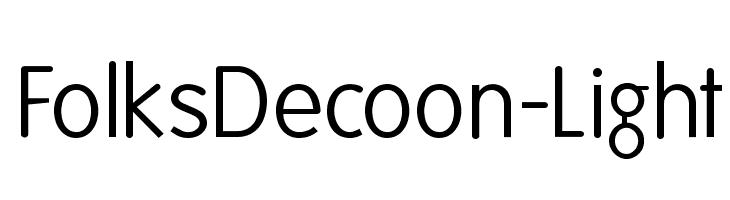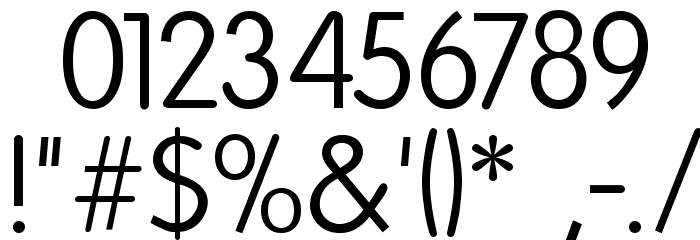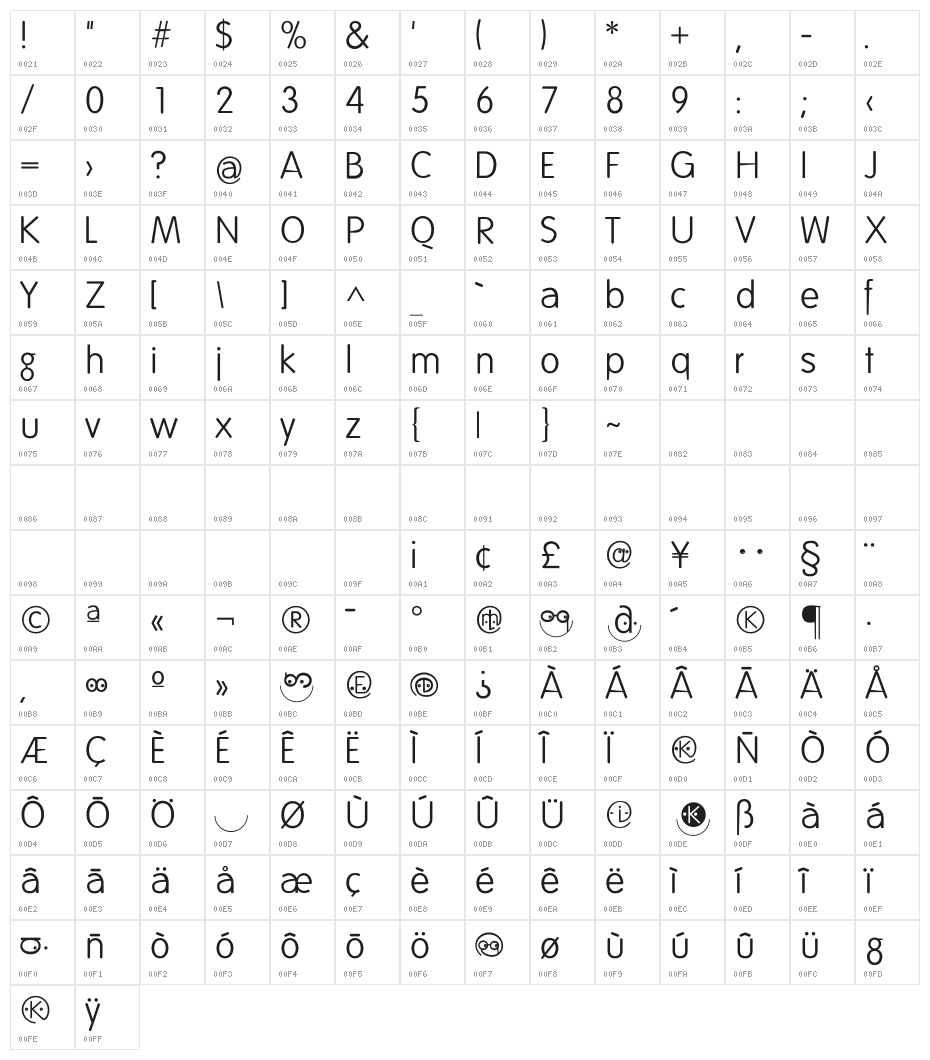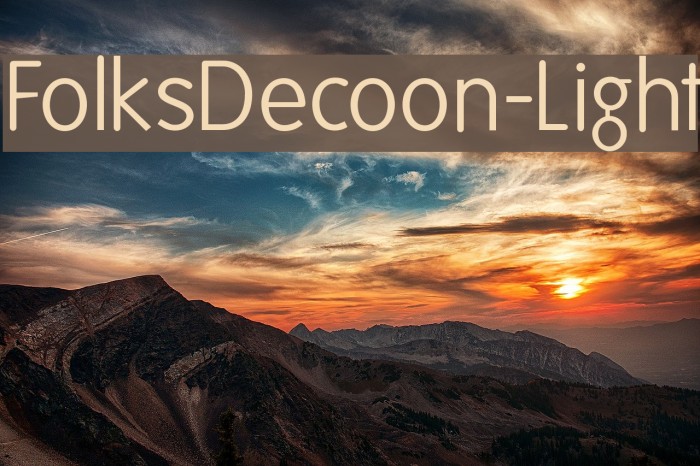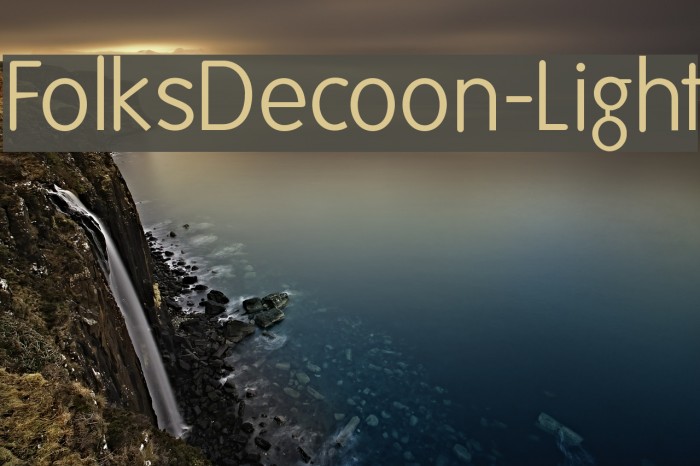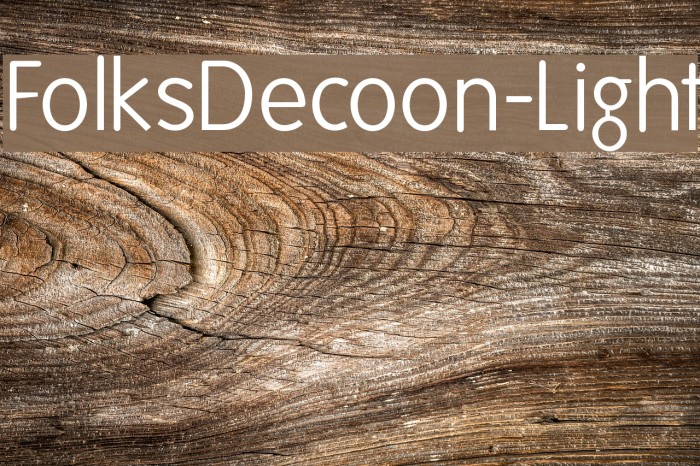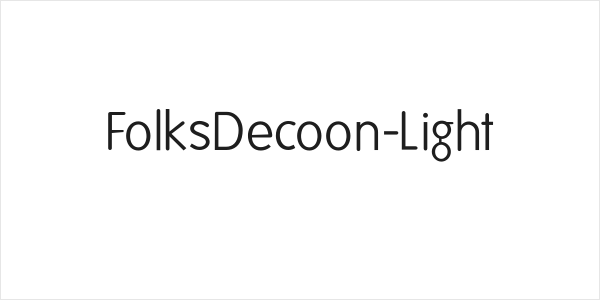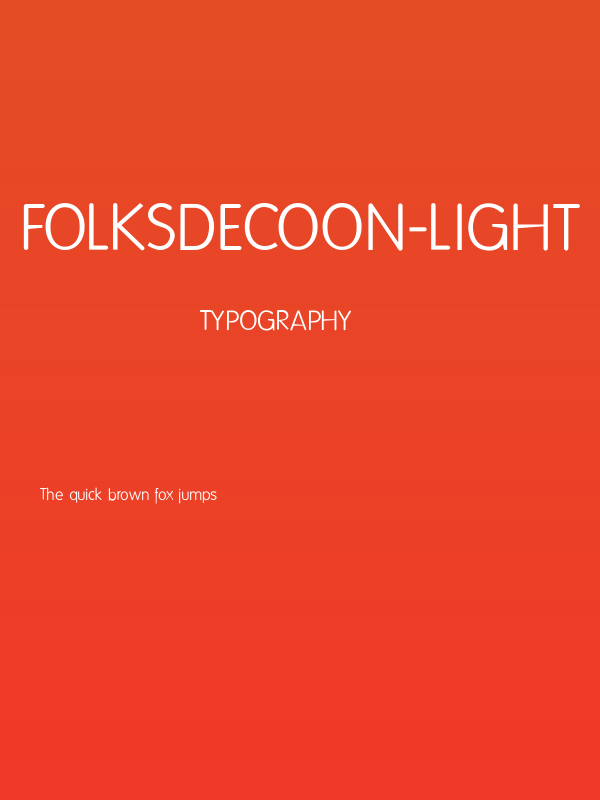
FolksDecoon-Light Font
FolksDecoon-Light Description
This font exhibits a clean and modern sans-serif style with a light weight. The characters are designed with a geometric precision, featuring smooth curves and straight lines that create a harmonious and balanced appearance. The uppercase letters are slightly taller than the lowercase, providing a clear distinction between the two. The numerals are consistent with the overall style, maintaining the same geometric and minimalistic approach. Special characters are well-integrated, ensuring versatility in various applications. The overall design is sleek and professional, making it suitable for a wide range of uses.